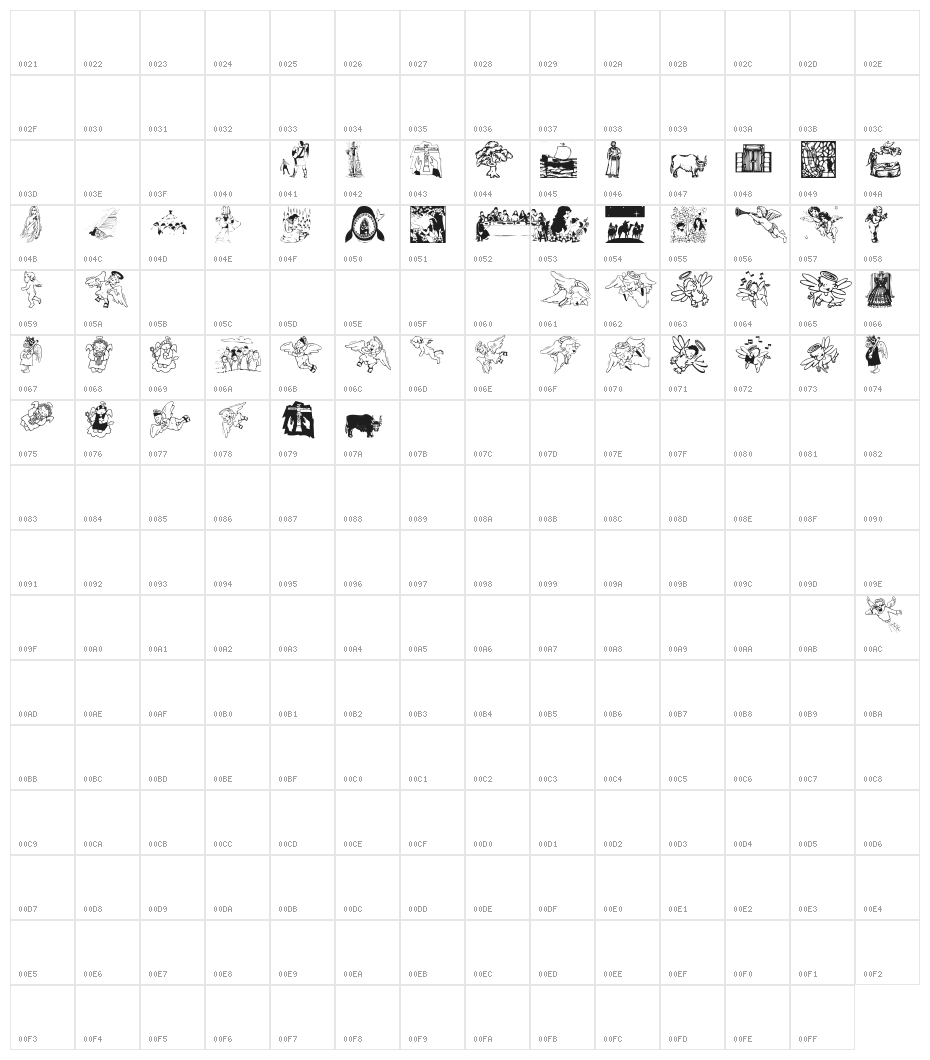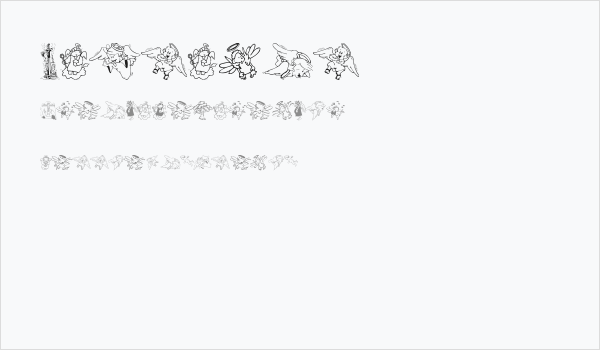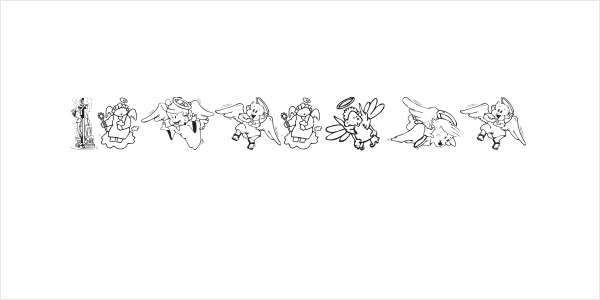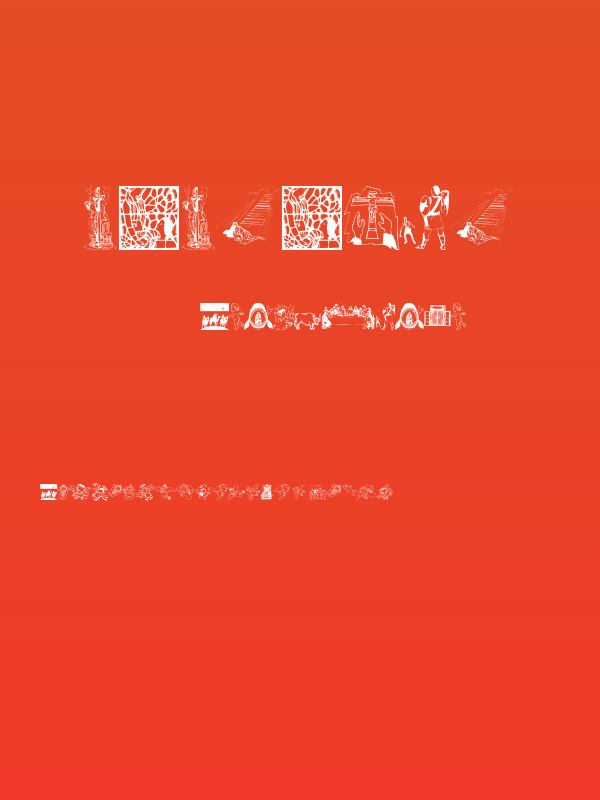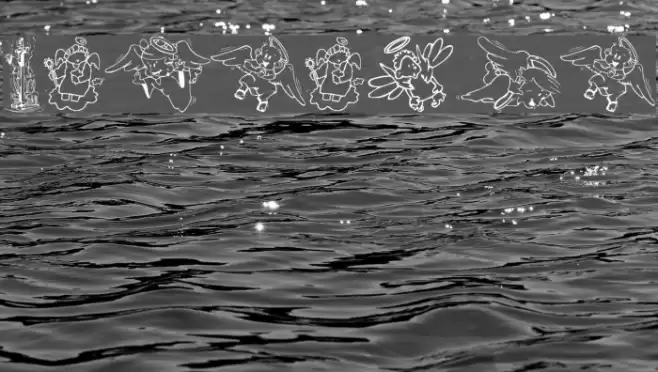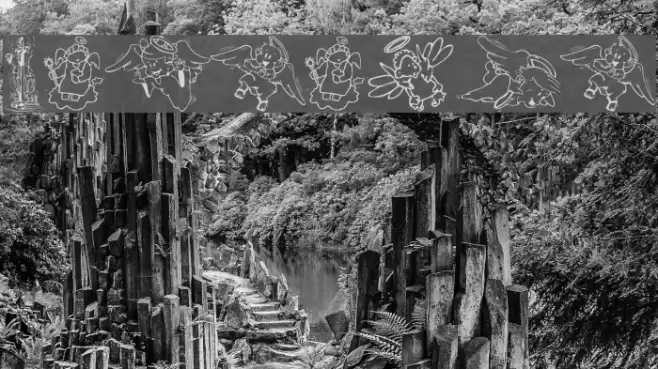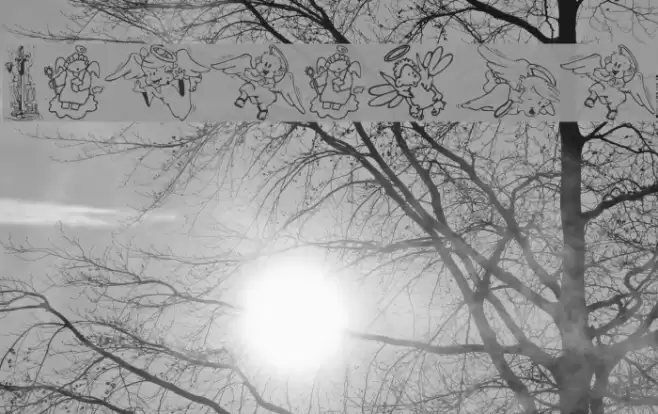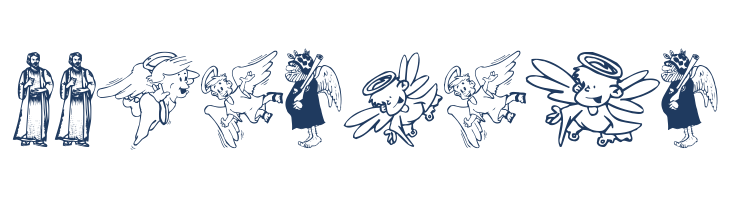
Biblical Font
Biblical Description
A highly decorative, illustrative font composed of detailed black-and-white drawings depicting biblical scenes, characters, and angels. Each glyph is a unique pictorial representation rather than a traditional letterform, making it more of a dingbat or pictogram set.
| Overall Style | Decorative, Illustrative, Thematic |
| Use Case | Decorative elements, Themed graphics, Religious materials |
| Proposed Projects | Religious event flyers, Sunday school materials, church bulletins, themed invitations, decorative borders. |